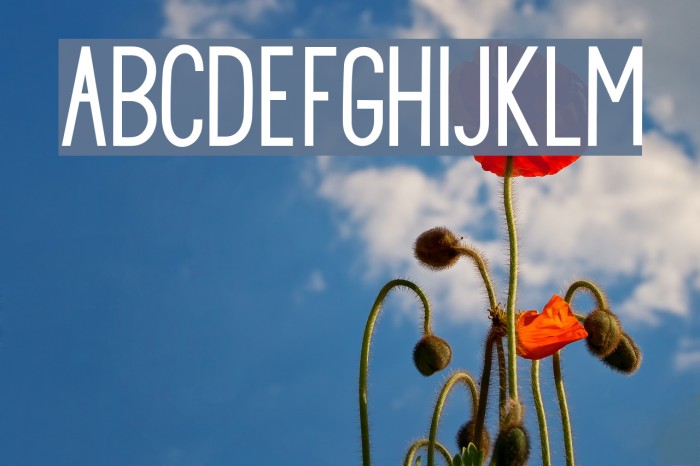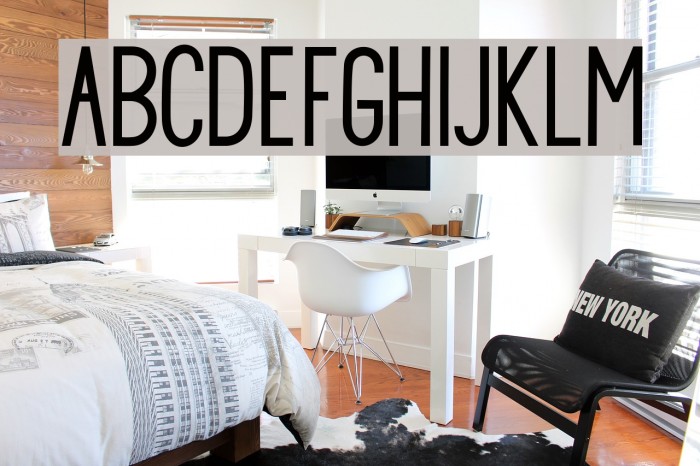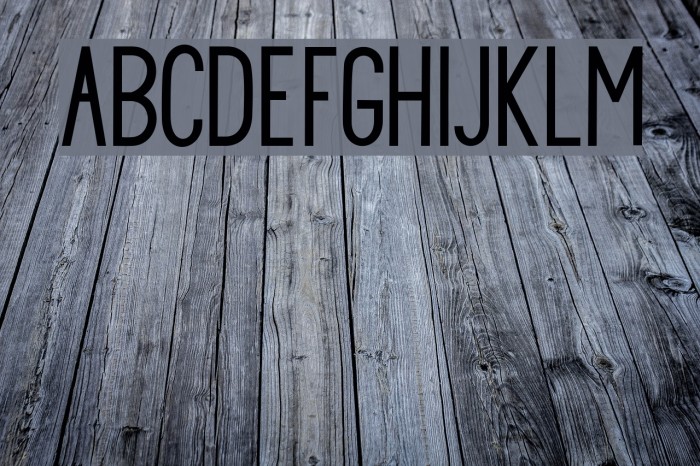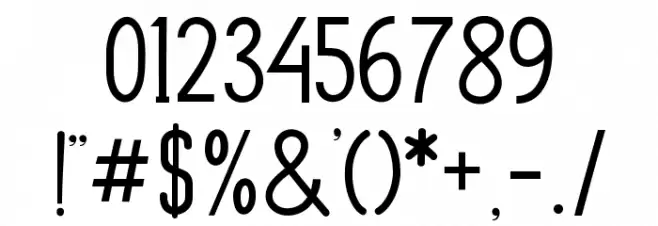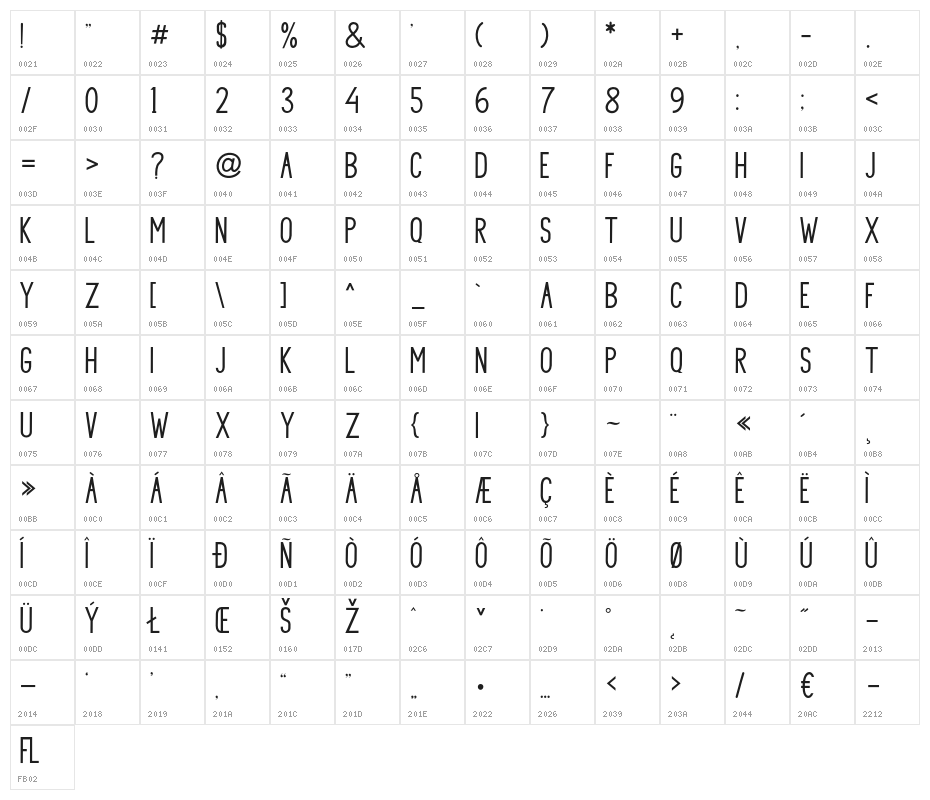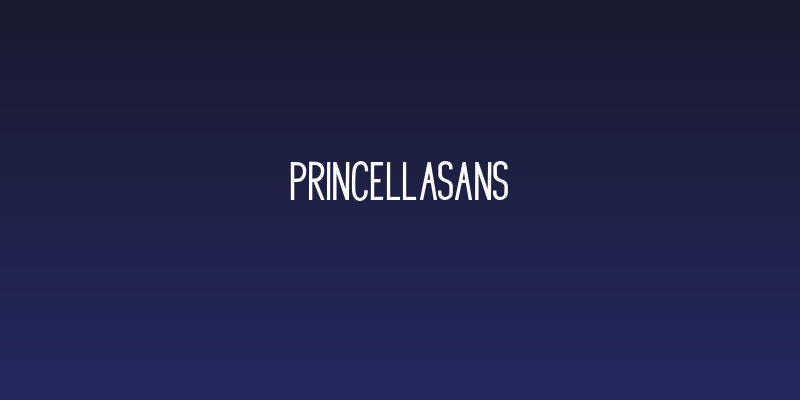
PrincellaSans Font
This font features a clean, modern sans-serif style with a tall and narrow appearance. The characters are uniformly structured, providing a sleek and professional look. The uppercase letters are slightly taller than the lowercase, maintaining a consistent width throughout. The numbers are clear and easy to read, matching the overall aesthetic of the alphabet. Special characters are well-defined, complementing the font's minimalist design. The font's simplicity and elegance make it suitable for various applications, offering versatility in both digital and print media.
A modern, tall, and narrow sans-serif font with a clean and professional look.
- Proposed Projects: Ideal for branding, advertising, web design, and editorial projects where a modern and clean aesthetic is desired.